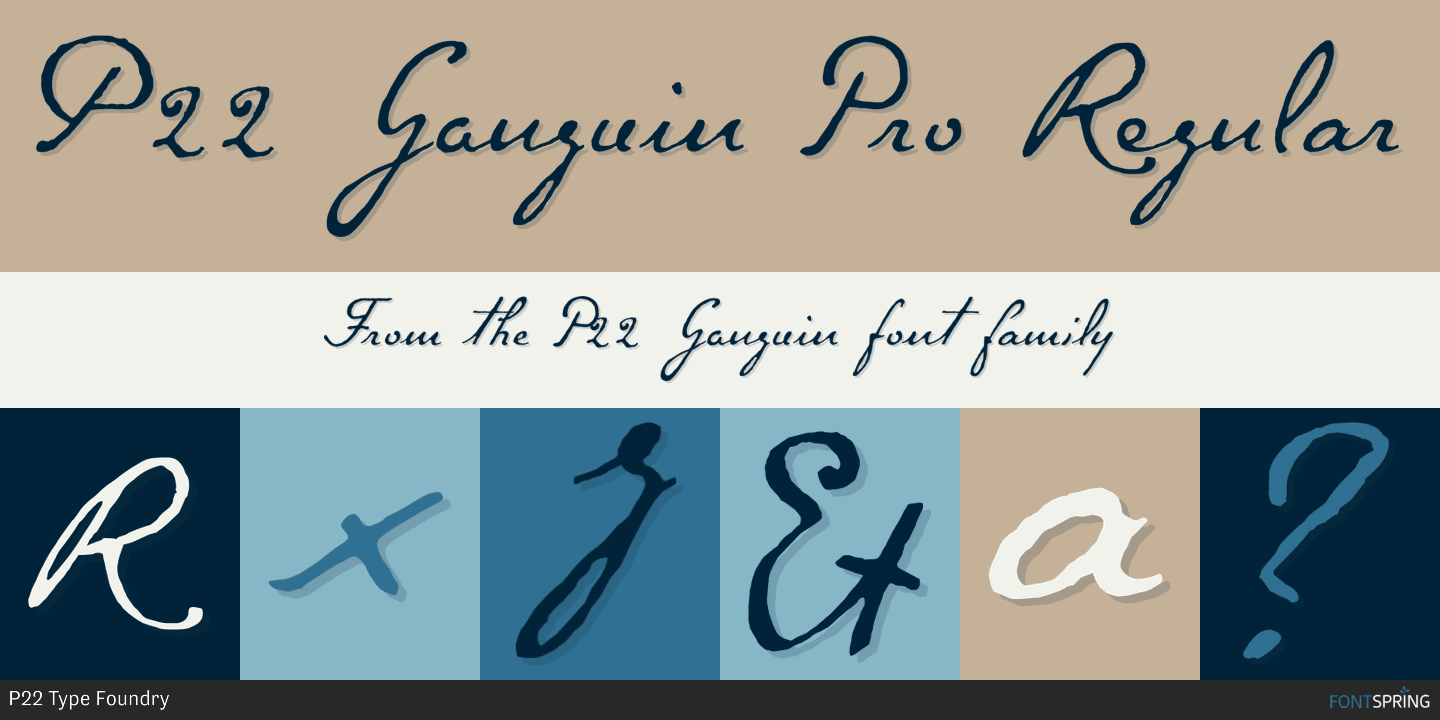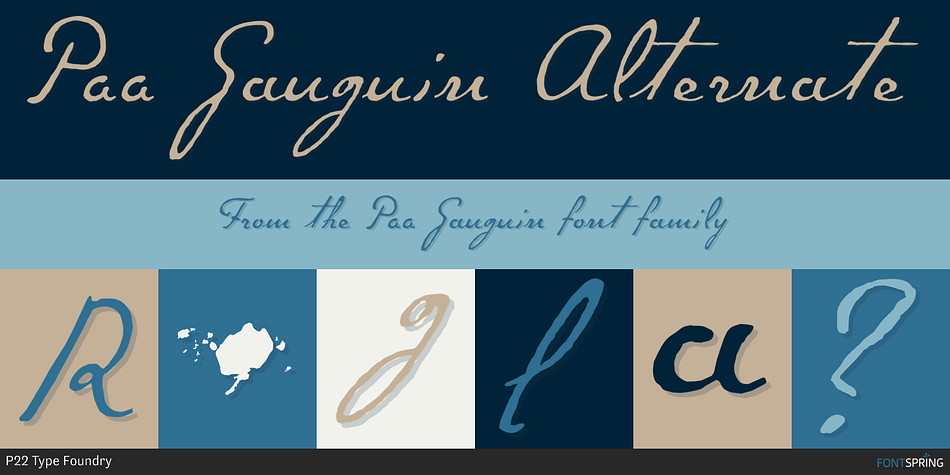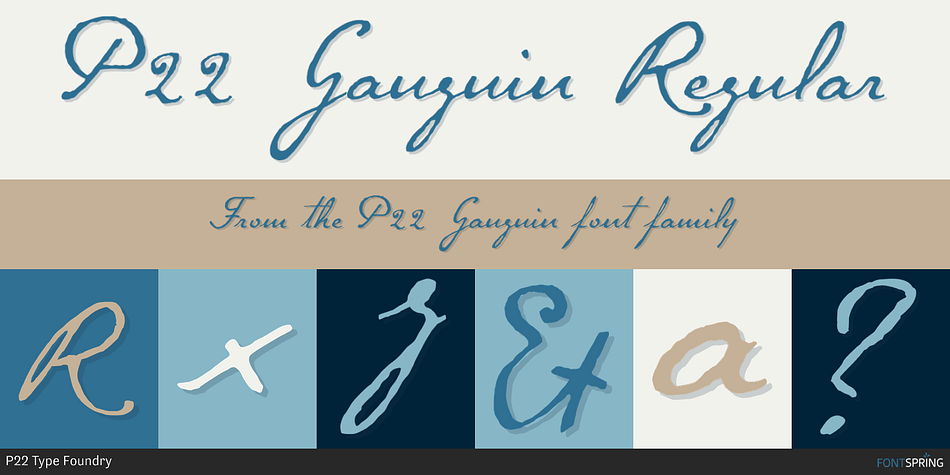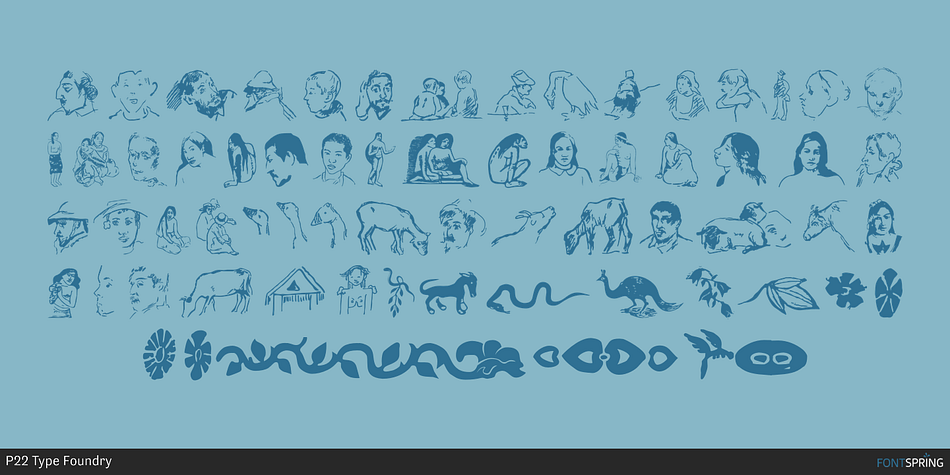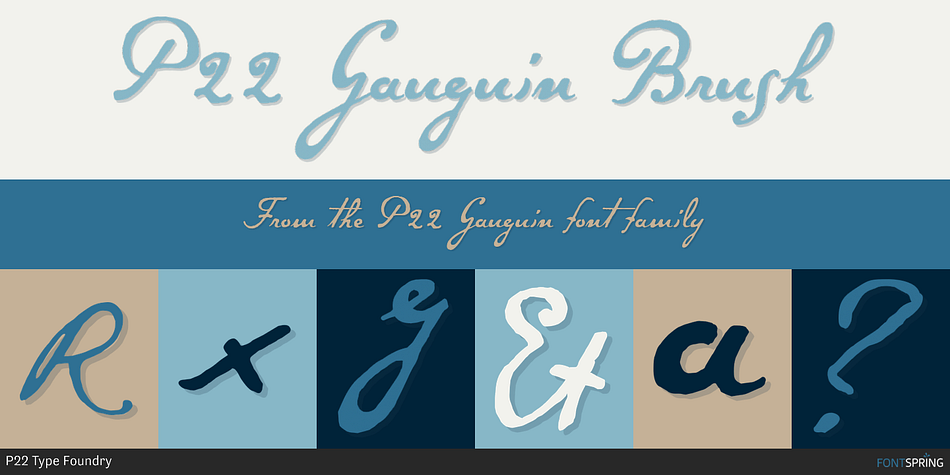
P22 Gauguin is a dingbat, historical and script font family. This typeface has five styles and was published by P22 Type Foundry.
A script font set based on the writings and sketches of Post-Impressionist artist Paul Gauguin. This naturalistic writing font was based on Gauguin’s notebooks from his travels to Tahiti and the South Seas. This set presents two styles of script fonts (Regular & Brush) and a set of decorative extras featuring Gauguin woodcuts, sketches and imagery from his paintings.
P22 Gauguin Pro incorporates the font P22 Gauguin Regular plus over 350 additional characters including: Stylistic alternates for all characters (a-z, A-Z), Central European and Cyrillic character sets, ligatures, swash characters and many OpenType features. Gauguin Pro is an OpenType font but is bundled with Gauguin Regular and Gauguin Alternate for use in applications that do not take full advantage of OpenType fonts.